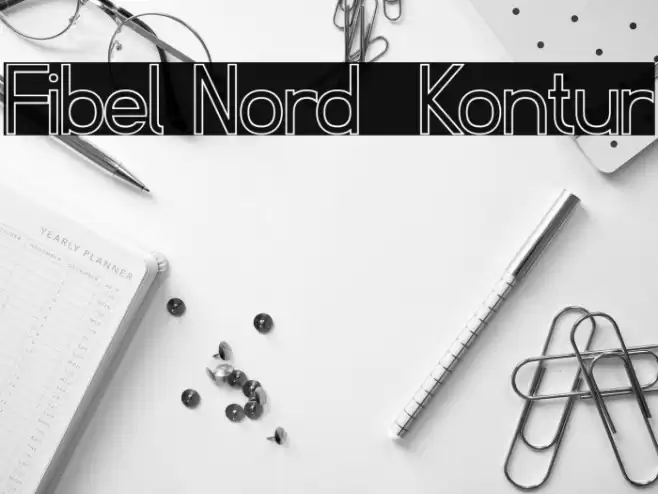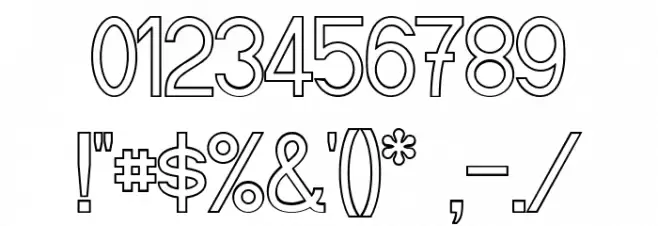
Fibel Nord Kontur Font
Fibel Nord Kontur Description
This font features a clean, geometric design with a distinct outline style. The characters are constructed with uniform line thickness, creating a modern and minimalist appearance. The uppercase and lowercase letters maintain a consistent height and width, contributing to a balanced and harmonious look. The numerals and special characters are designed to match the overall aesthetic, ensuring visual coherence across all elements. This font's open and airy structure makes it suitable for various design applications where clarity and style are essential.
A modern, geometric outline font with uniform line thickness from Uncategorized fonts.
- Proposed Projects: Ideal for branding, posters, headlines, and digital media where a contemporary and stylish look is desired.